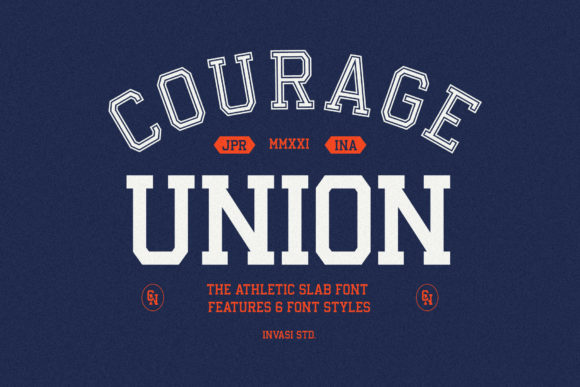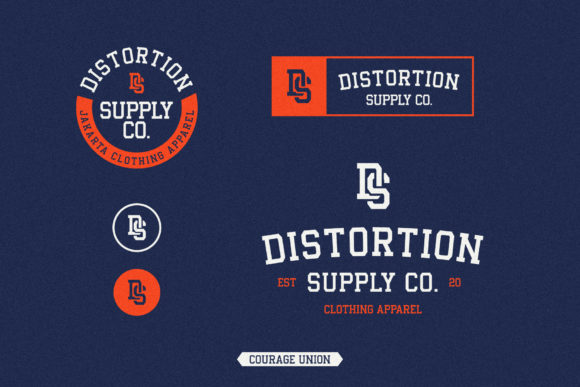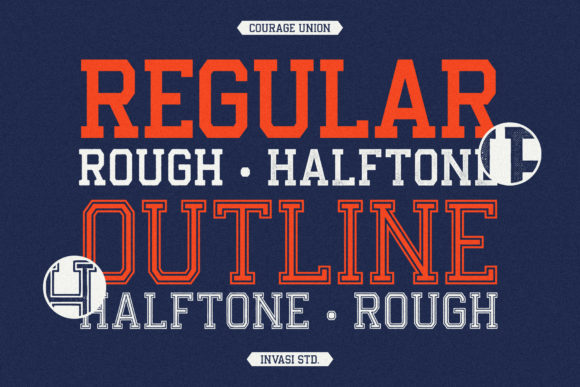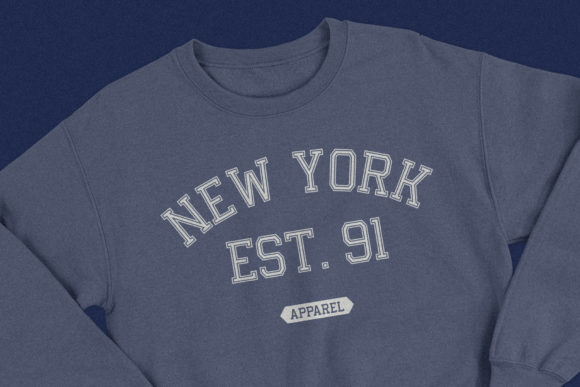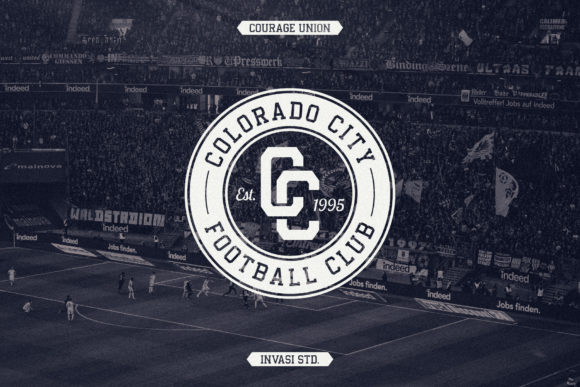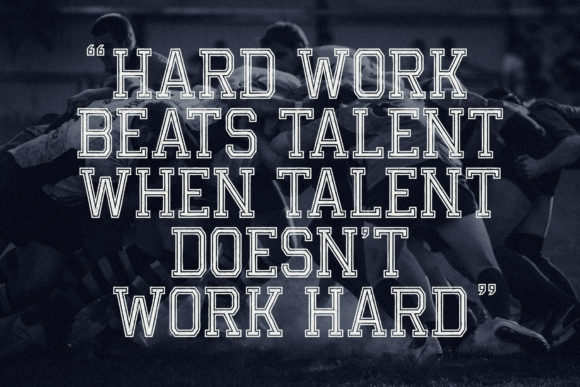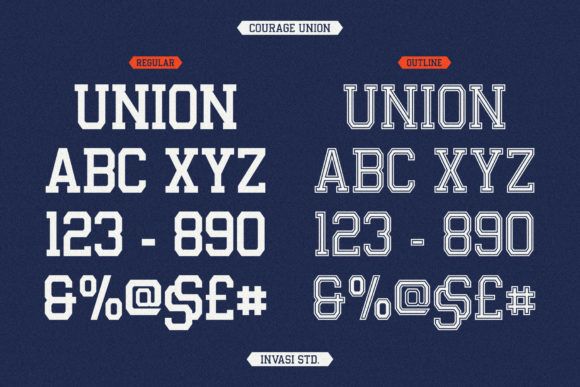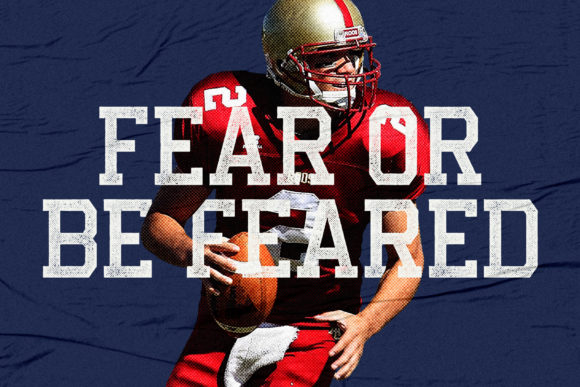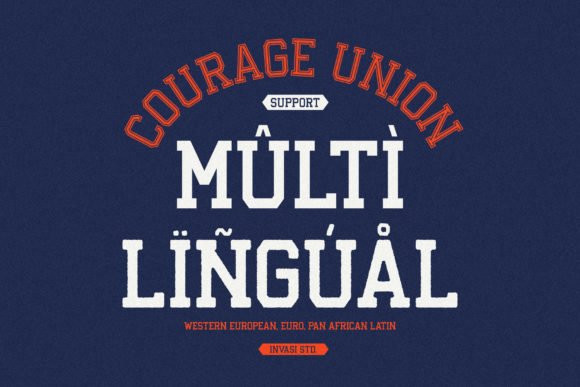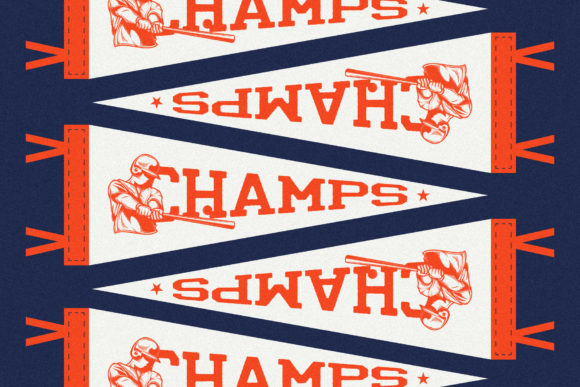
Courage Union
Courage Union: A Cool and Bold Slab Serif Font
Courage Union is a distinctive slab serif font that combines coolness with boldness. This versatile typeface is perfect for creating designs that make a strong, modern impact across various applications.
Key Features of Courage Union
• Cool Design: Features trendy letterforms that align with current design trends.
• Bold Appearance: Offers a strong and impactful look that grabs attention.
• Slab Serif Structure: Includes the typical thick, rectangular serifs of slab serif fonts.
• Versatile Use: Suitable for a wide range of projects, from branding to web design.
• Eye-catching Details: Unique characteristics that make designs stand out.
Ideal Uses for Courage Union
This font works especially well for:
• Corporate branding and logo design
• Social media content and digital advertising
• Packaging and label designs
• Website headers and call-to-action buttons
• Poster and billboard designs
When using Courage Union in your designs, consider these ideas:
• Use large font sizes to showcase the font’s unique details.
• Pair with thinner fonts to create contrast.
• Try white text on colorful backgrounds for a striking effect.
• For logos, consider custom adjustments to highlight the font’s character.
Courage Union is poised to become a staple in the modern design world. It’s effective for a wide range of projects, from logo designs to digital media. This font is perfect for those seeking a bold and innovative look.
Moreover, Courage Union’s versatility allows it to shine in various styles. You can use it in vintage-inspired designs for a modern twist or in playful layouts for a strong accent.
In conclusion, with Courage Union, you can push the boundaries of your creativity. Whether you’re creating a magical atmosphere or aiming for a more thoughtful tone, this font adapts to your needs. It works well in both retro designs and modern compositions, and can even add a bold touch to traditional holiday themes.